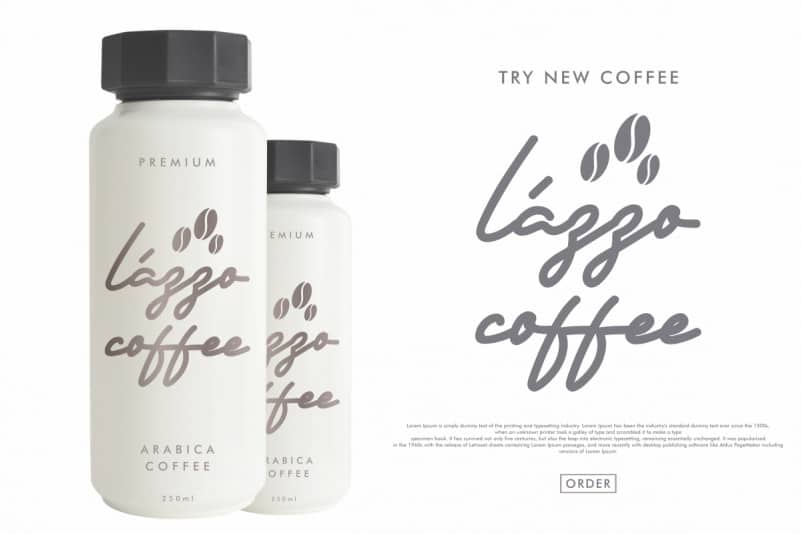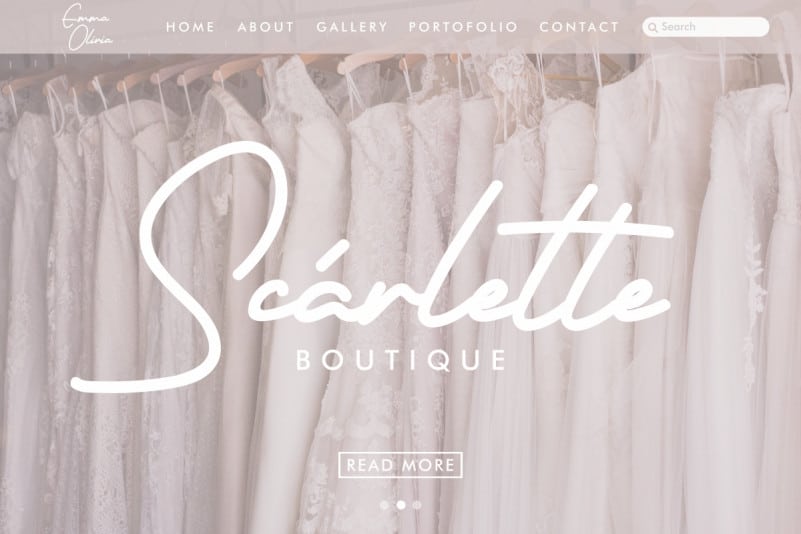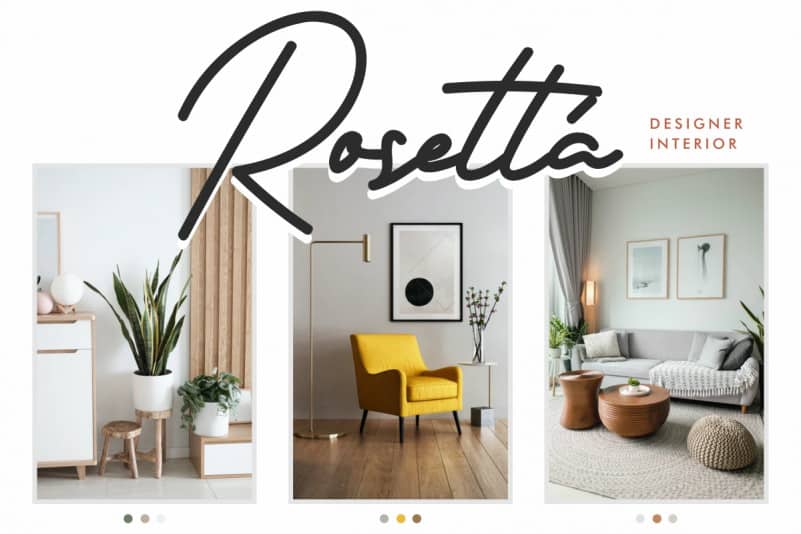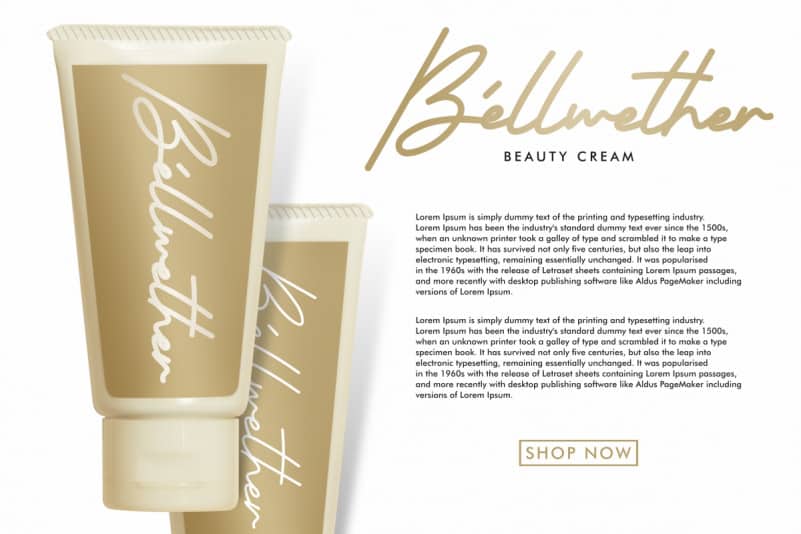
Beautyous Signature Script Font
Beautyous Signature Script Font is an original handwritten script typeface with unique natural look. It has a stunning characters set, perfectly managed with well spaced and kerning. The theme style of this font is simple. elegant, sophisticated, stylish, clean and classic signature style.
Beautyous Signature Script Font will be great for any projects (with extended license) including : branding, logo, stationery, business card, signage, flyer, brochure etc. Almost all industries will be match for this typeface: wedding, events, real estate, architect, law firm, florist, gardening, makeup artist, travel, hotel, musician etc